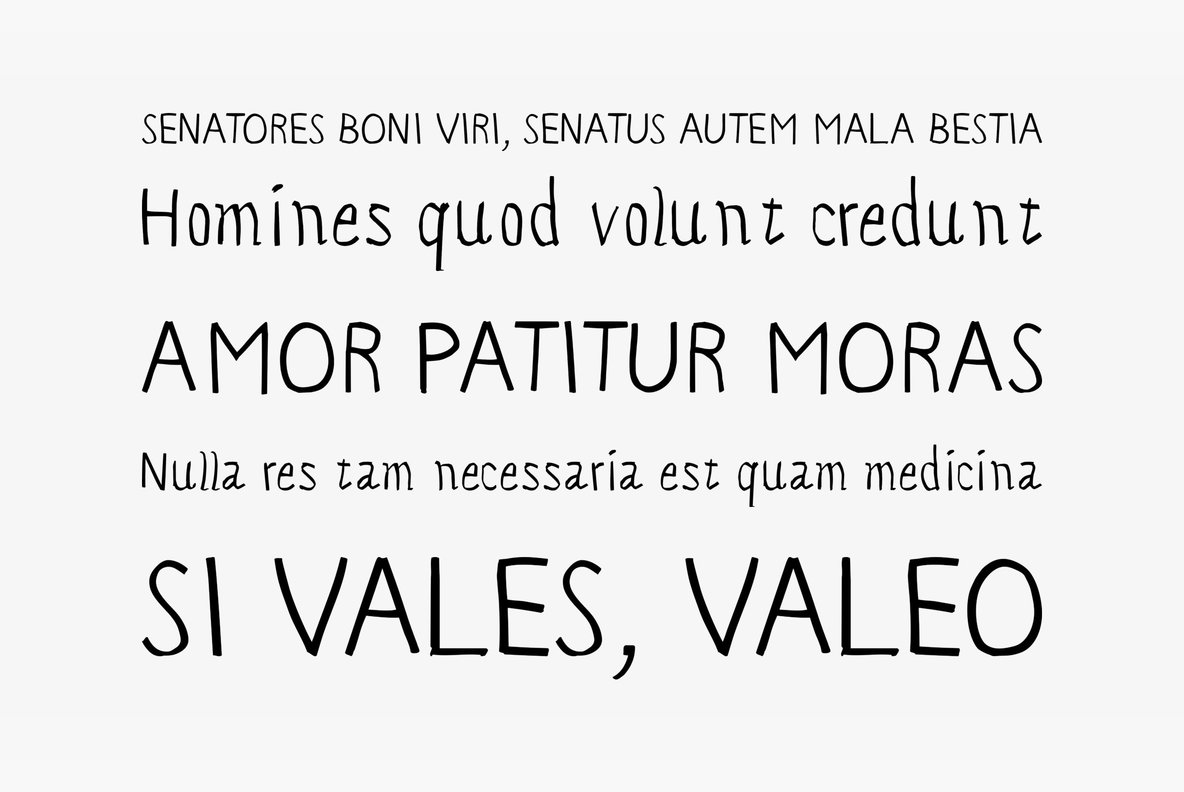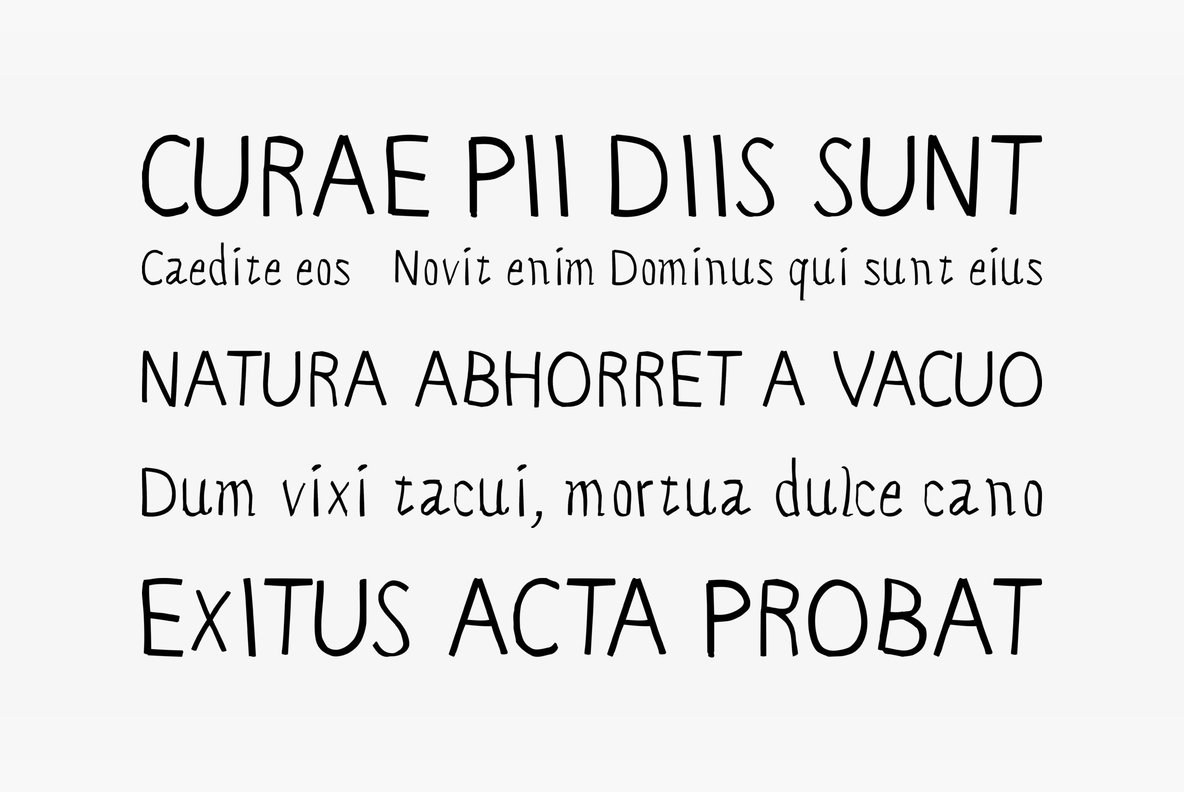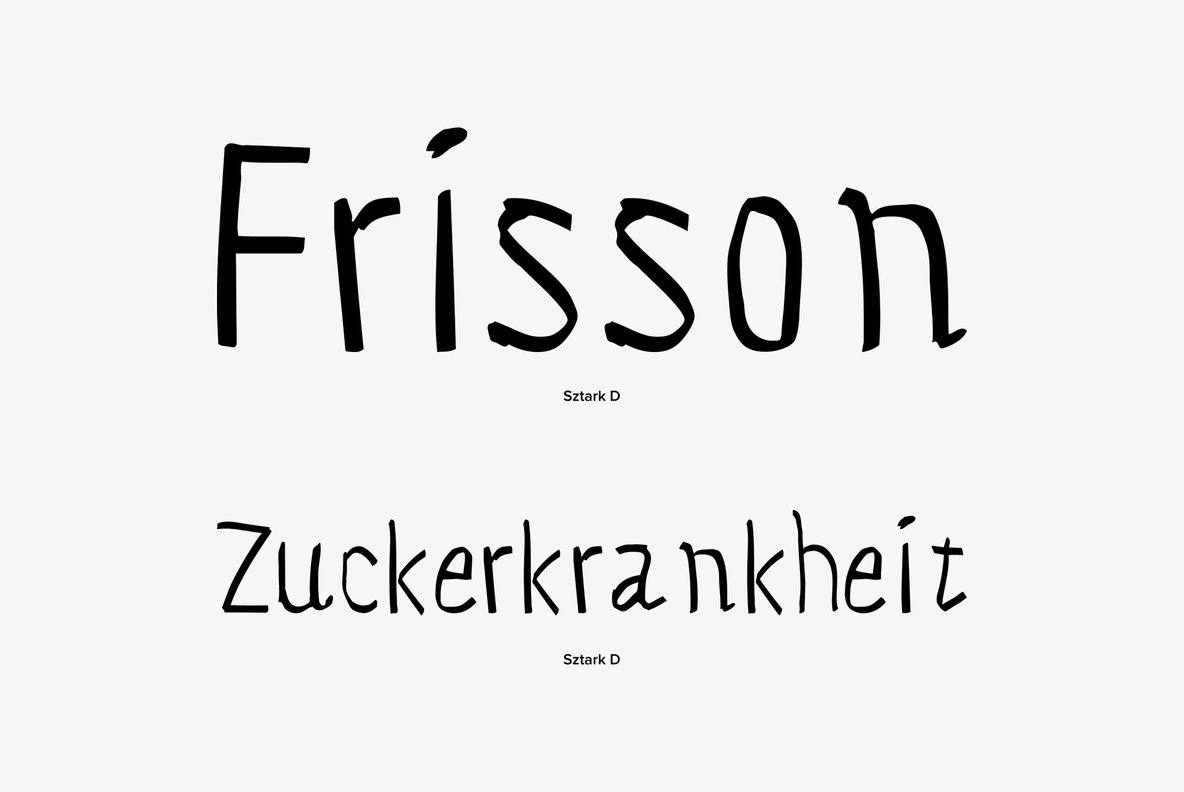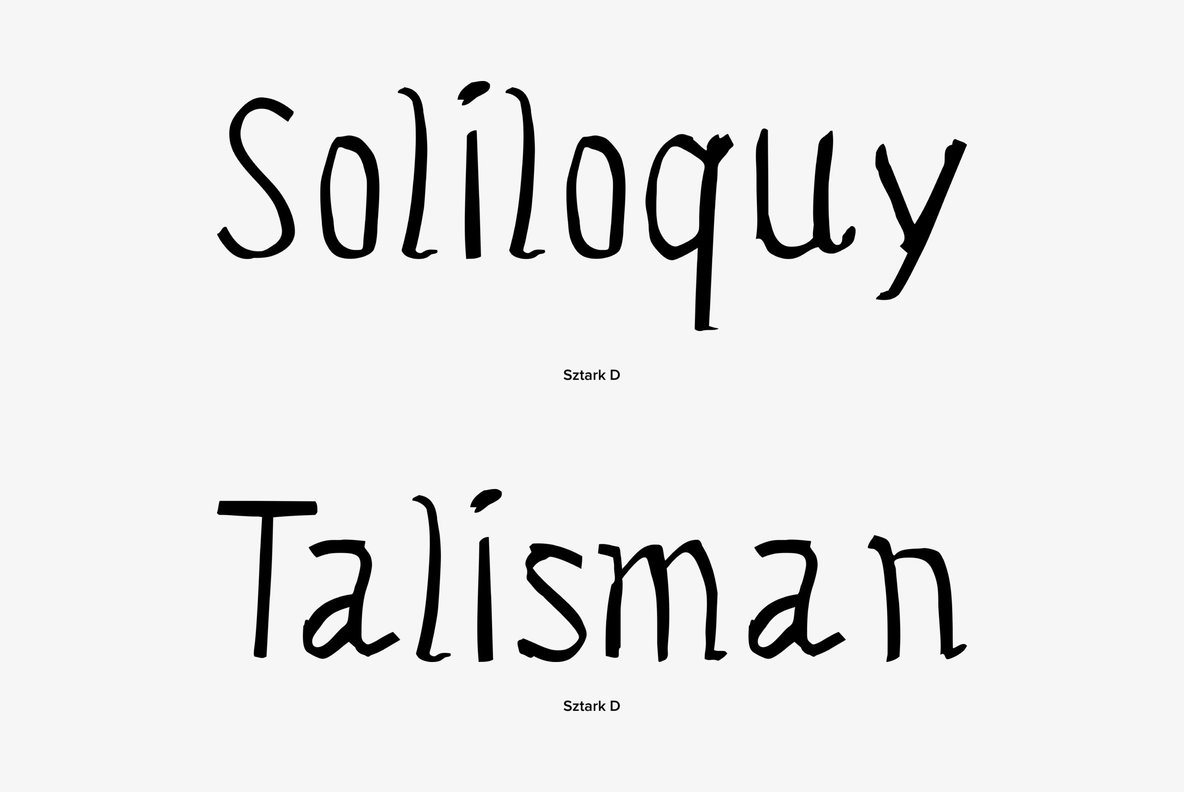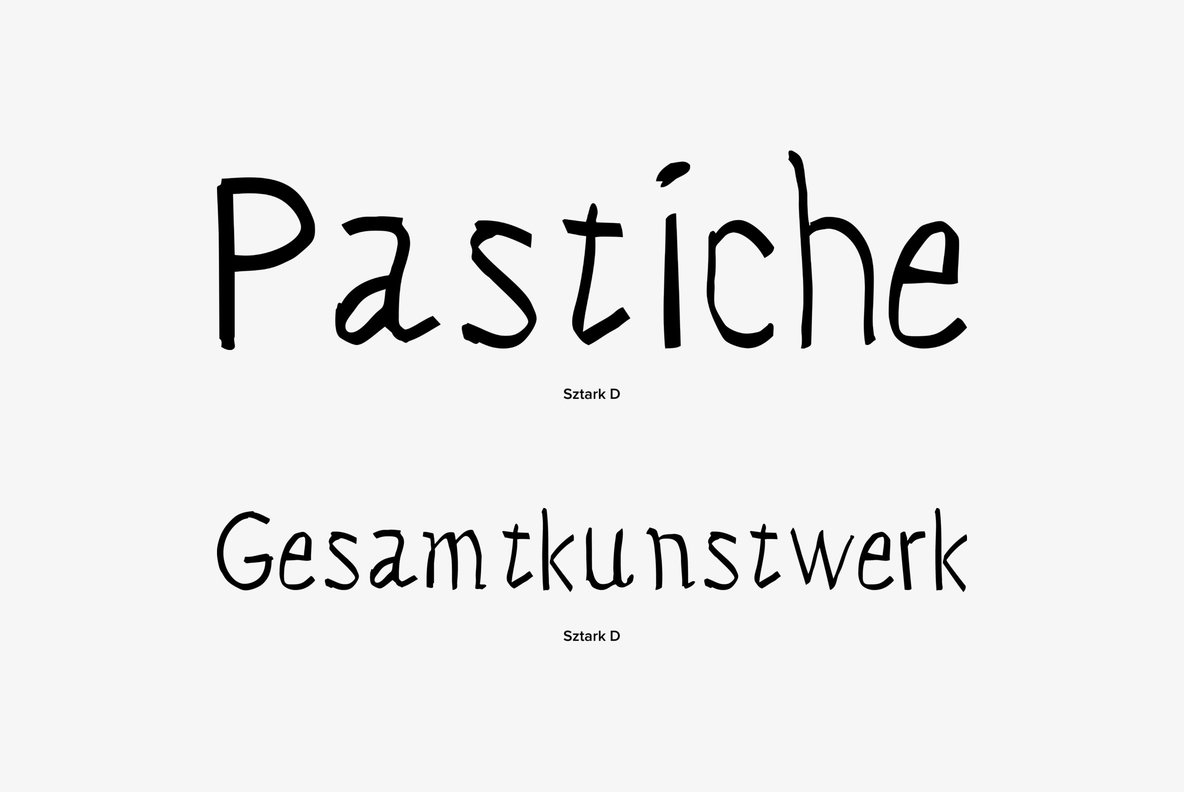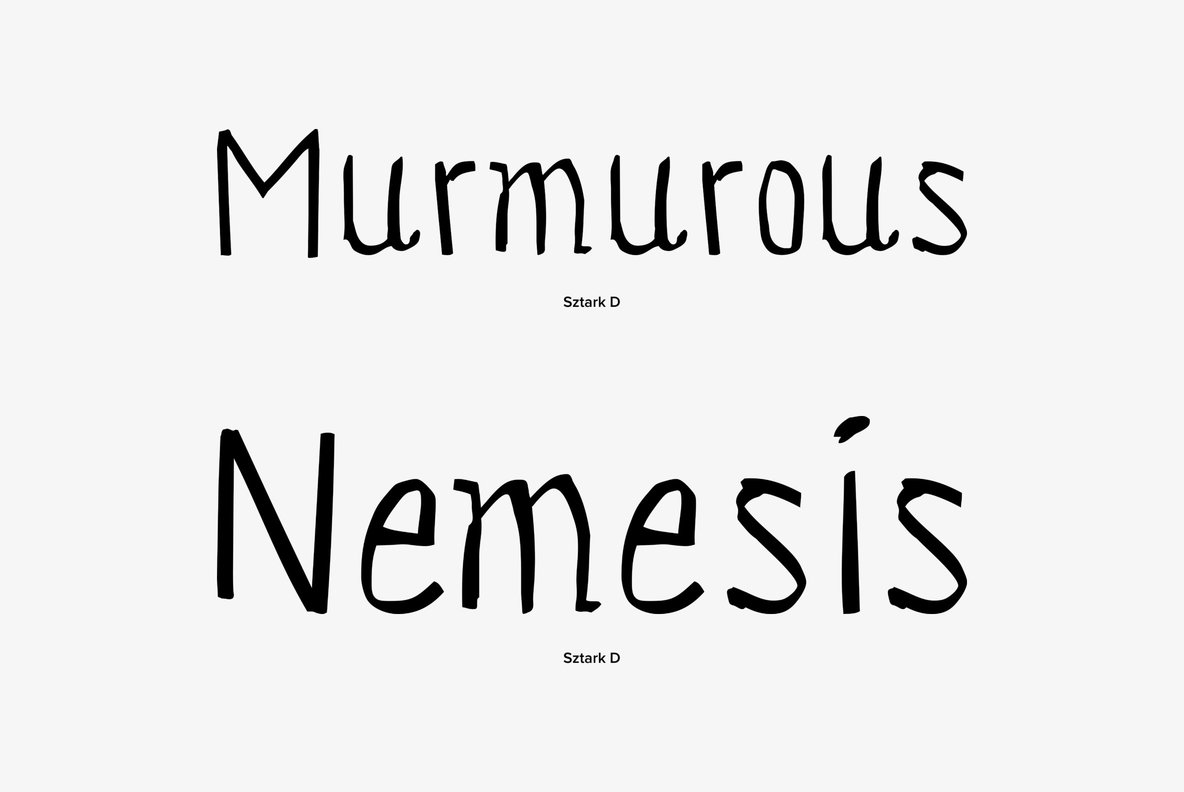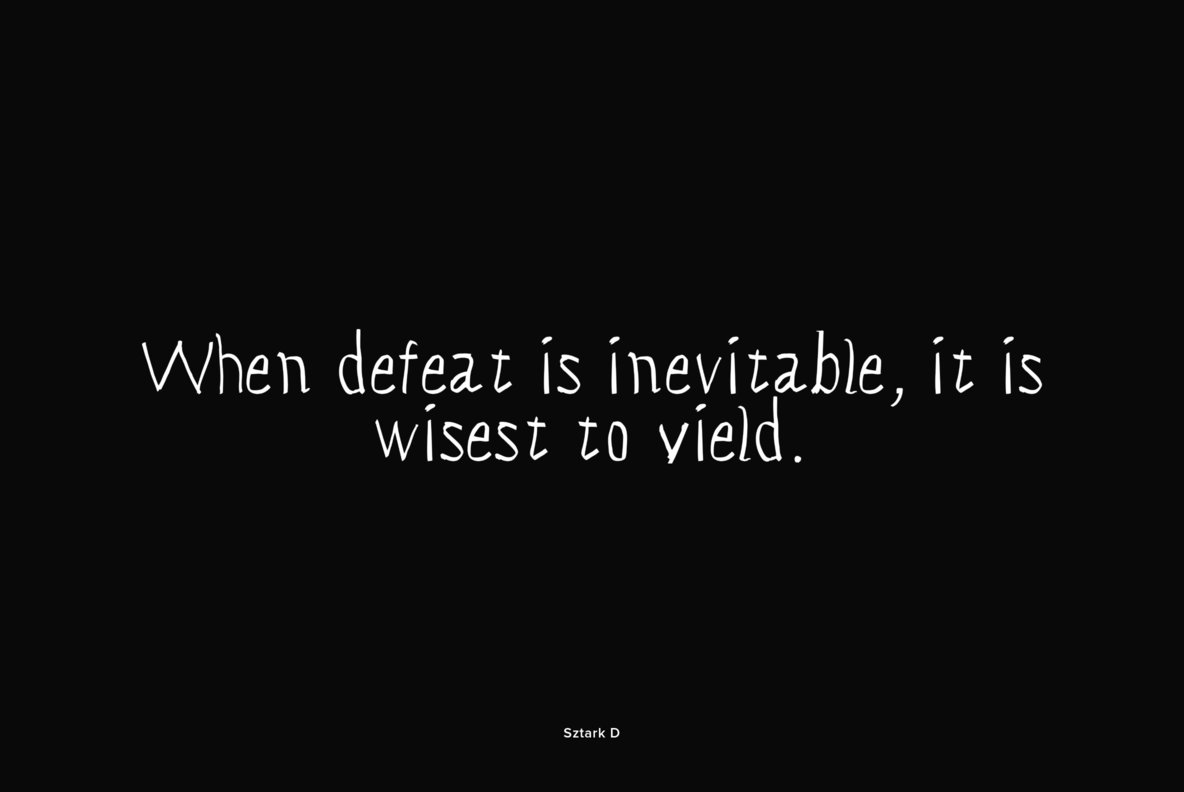
Sztark is a hand drawn type design that was designed by Wojtek Podulka in 2004, released by URW. It works great in playful, casual and children's themed type settings.